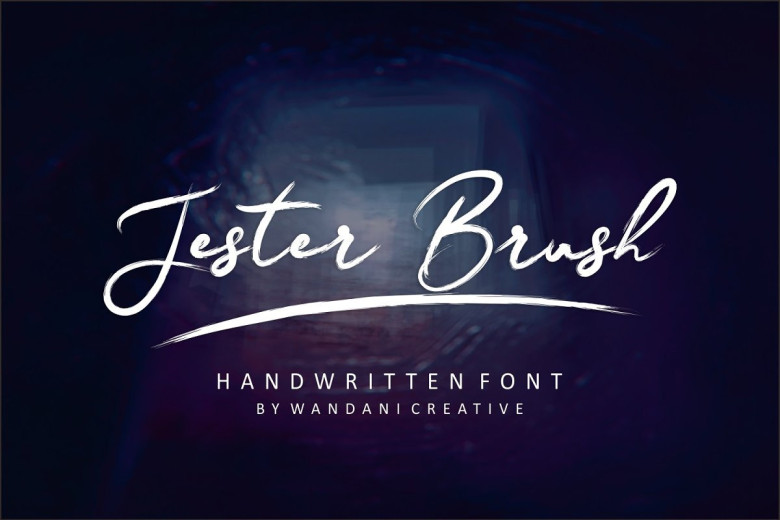
Jester Brush Font
Introducing Jester Brush! A cool, classy and versatile brush font with a loose flow. giving style texts that are guaranteed to add an attractive appeal to your logo design, brand image, handwritten quotes, product packaging, merchandise & social media posts.